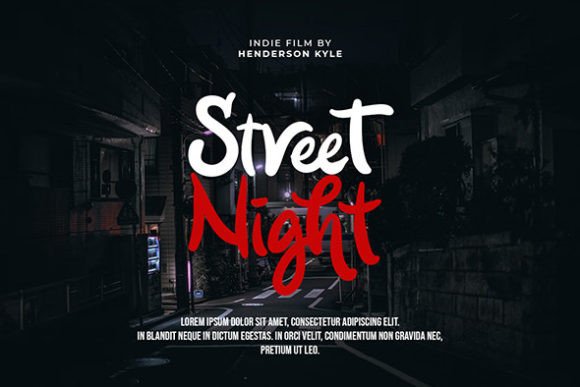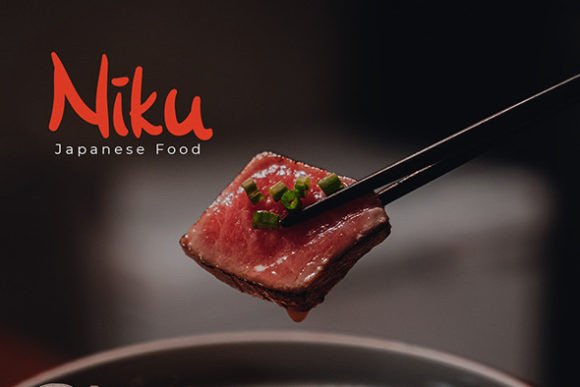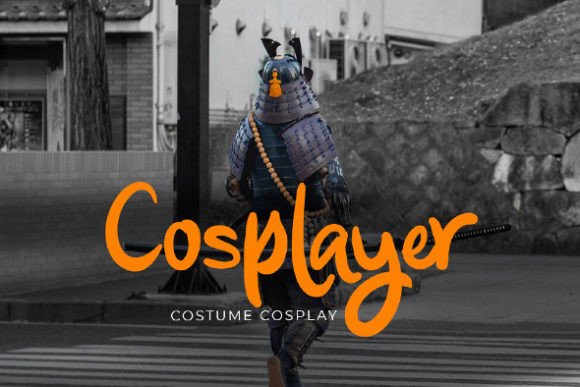
Introduction to Siyuki Font
Do you remember the moment when a single design element sparked an entire creative project? For designers, those moments are invaluable. As we dive into the world of typography, we often find ourselves searching for the perfect font to bring our ideas to life. That’s where the Siyuki Font comes in – a stunning Script Font inspired by the elegance of Japanese-letter style.
Suitable for any Asian theme design and promotion, Siyuki Font is perfect for creating a cool design that leaves a lasting impression. With its PUA encoded features, accessing all the glyphs and swashes is a breeze, making it an ideal design resource for designers. Whether you’re working on branding, logos, movie posters, or product packaging, this high-quality font is sure to elevate your creative project.
Key Features of Siyuki Font
- High-quality font designed for creative projects, ideal for use in graphic design, digital art, and other visual mediums.
- Transparency feature allows for seamless integration with transparent backgrounds, enhancing its usability in creative projects.
- Unique design characteristics make Siyuki Font a valuable resource for designers seeking a distinctive and high-quality font.
- Perfect for use in digital design, print media, and web development, making it a valuable addition to any designer’s toolkit.
Honest Review: Siyuki Font
I recently had the chance to work with the Siyuki Font, and I must say it’s a great addition to any designer’s toolkit. The high quality of this font makes it perfect for any creative project, whether it’s a logo, poster, or website.
- Transparency: The Siyuki Font has a transparent background, making it easy to overlay on any image or background.
- High-quality design: The font is well-designed and looks great on both light and dark backgrounds.
⚠️ However, there are a few limitations to consider:
- Not suitable for body text: Due to its decorative nature, the Siyuki Font may not be the best choice for large blocks of text.
- Limited character set: The font only includes a limited set of characters, which may not be suitable for languages that require a wider character set.
Overall, I’m impressed with the Siyuki Font. It’s a great resource for designers who need a high-quality, decorative font for their creative projects. With its transparent background and free download, it’s definitely worth checking out.
The Siyuki Font is a high-quality design resource ideal for creative projects that require a unique and stylish touch. This font features a transparent background, making it perfect for overlaying text on images or using as a standalone design element.
Getting the Most Out of Siyuki Font
To get the most out of the Siyuki Font, use it in combination with other design elements, such as images and graphics, to create a visually appealing design. Experiment with different font sizes, colors, and styles to find the perfect look for your creative project.
The Siyuki Font is ideal for a variety of creative projects, including logos, business cards, brochures, and social media graphics. Its unique style and transparent background make it perfect for overlaying text on images or using as a standalone design element.